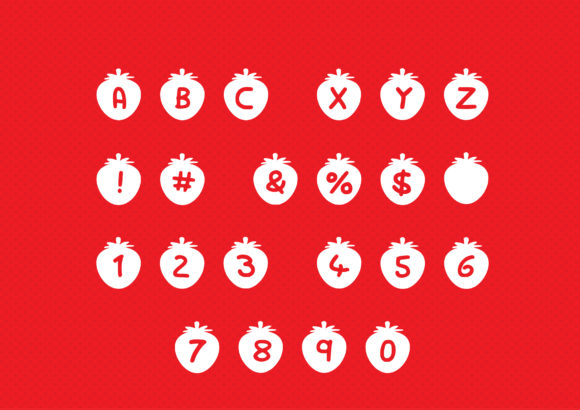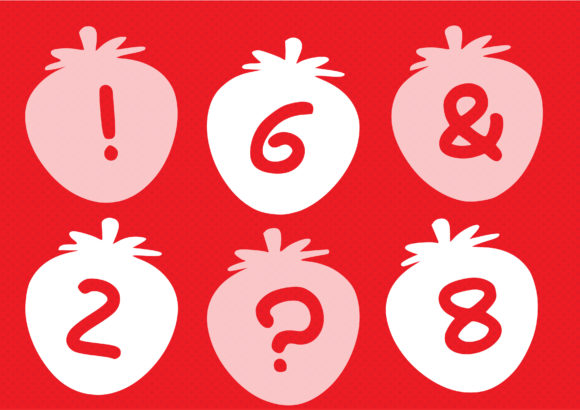
Introduction to Play Strawberry Font
Have you ever been working on a creative project, pouring your heart and soul into it, and then realized that the perfect touch is missing? For designers, typography can make or break the overall aesthetic of a project. That’s where the sweet and friendly Play Strawberry Font comes in – a free design resource that’s perfect for adding a pop of personality to your informal projects.
Whether you’re designing product packaging, branding for a small business, or creating kitchen designs, this high-quality font is a valuable addition to your design toolkit. Its transparent background makes it easy to customize and combine with other design elements, giving you endless possibilities for creative expression. With its free download option, you can access this versatile font and elevate your designs to the next level.
Key Features of Play Strawberry Font
- High-quality font with a unique, playful design perfect for creative projects.
- Available in a transparent background option for added flexibility in design.
- Designed with a high-resolution output, suitable for print and digital applications.
- Size: 256 glyphs, covering a wide range of characters and symbols for creative expression.
- Unique characteristics: bold and elegant lines, making it perfect for headings and titles in various design contexts.
Honest Review: Play Strawberry Font
I recently had the chance to work with the Play Strawberry Font and I must say it’s a unique addition to any creative project. Its quirky and playful feel makes it perfect for those looking to add some personality to their designs.
- What works well:
- High-quality design: The font is crisp and clear, making it perfect for print or digital applications.
- Transparent background: This allows for easy layering and manipulation of the font in design software.
- Limitations:
- Limited character set: The font only includes a basic set of characters, which may limit its use in certain applications.
- No bold or italic variations: While the font is cute and playful, it would be nice to have some additional variations to add depth to designs.
Overall, I’m impressed with the Play Strawberry Font and think it’s a great addition to any design resource. While it may have some limitations, its unique feel and high quality make it a great choice for designers looking to add some personality to their work.
Tips for Getting the Most Out of the Play Strawberry Font
When using the Play Strawberry Font, be sure to take advantage of its transparent background, making it perfect for creative projects. You can also use it in combination with other design resources to create a unique and high-quality design.
The Play Strawberry Font is perfect for a variety of creative projects, including social media graphics, blog posts, and marketing materials. Its playful and whimsical design makes it ideal for projects that require a fun and engaging tone.
Yes, the Play Strawberry Font has a transparent background, allowing you to use it in various design scenarios, from graphic design to digital art, without worrying about background compatibility issues.